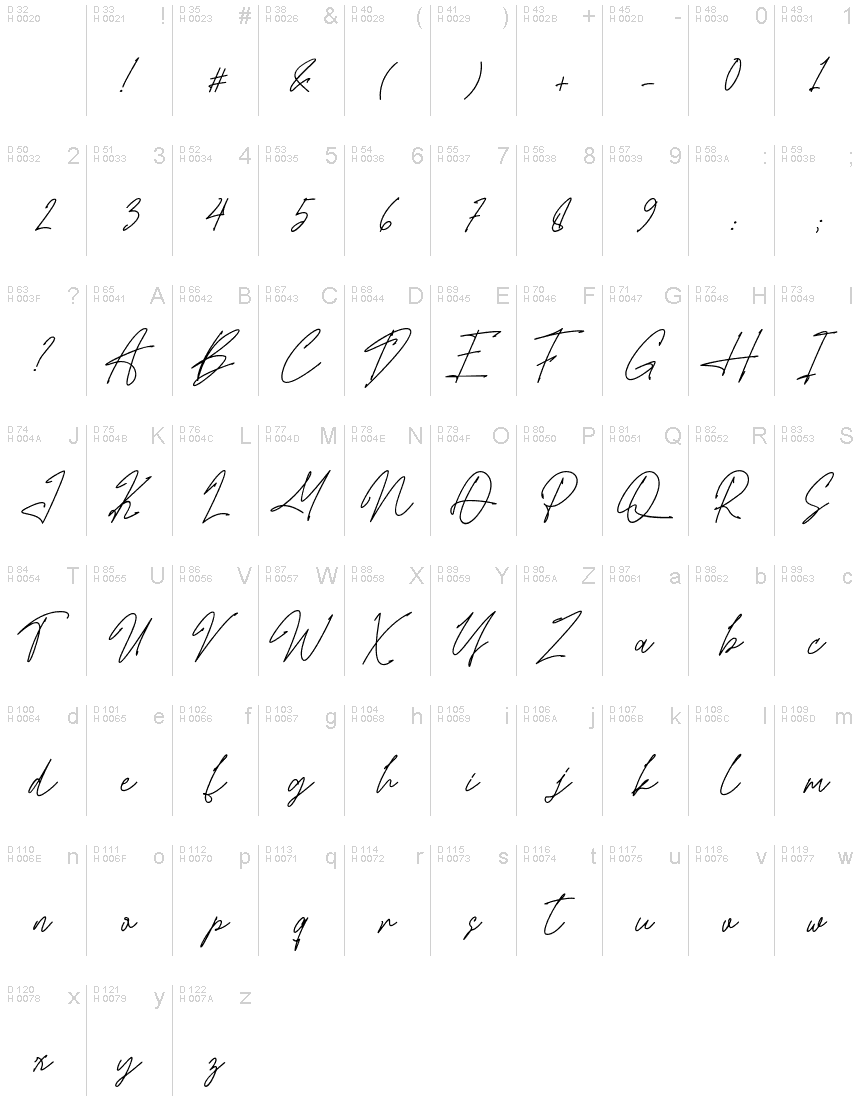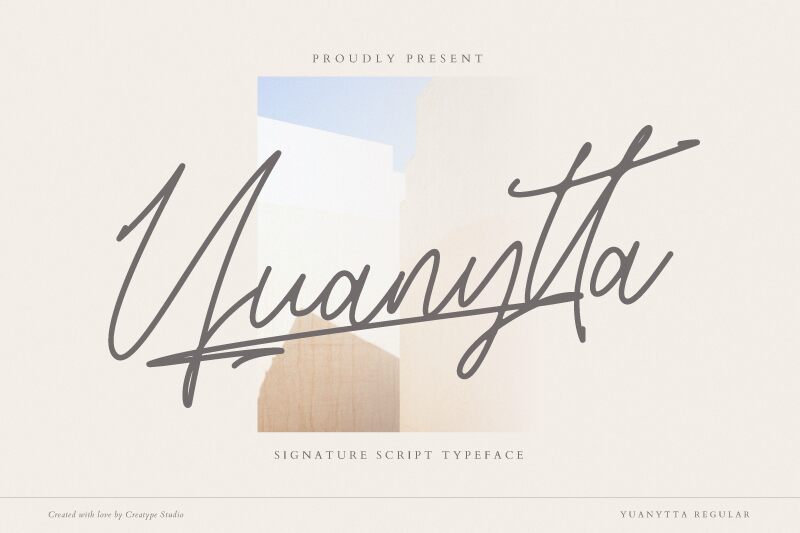
Yuanytta Regular
Yuanytta is a beautifully crafted handwritten signature font designed by Rian Rahardi. Its light weight exudes elegance and sophistication, making it perfect for creating stunning wedding invitations, menus, greeting cards, and other formal or festive designs. The flowing strokes of this font lend themselves to creating custom logos or branding materials that are both unique and memorable. Yuanytta's delicate curves will add a touch of grace to any project you choose, from social media graphics to website headers. Channel your inner calligrapher and elevate your designs with this exquisite font!